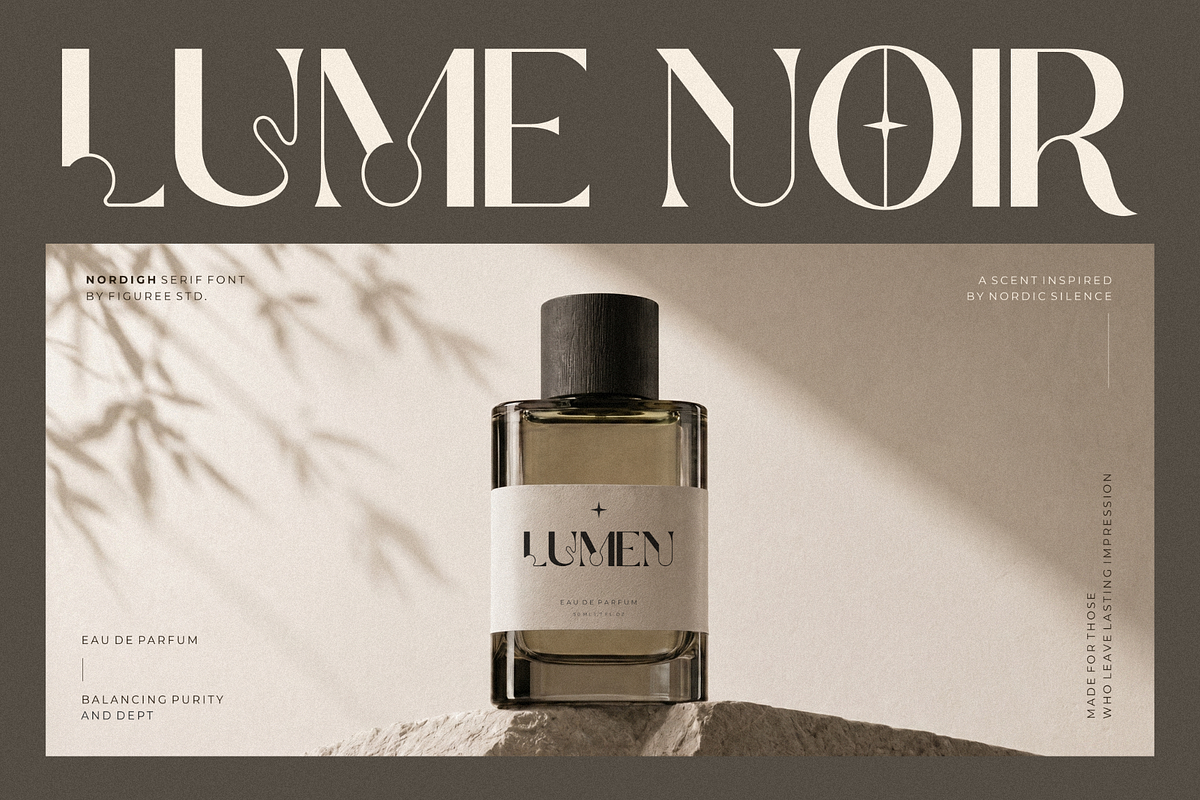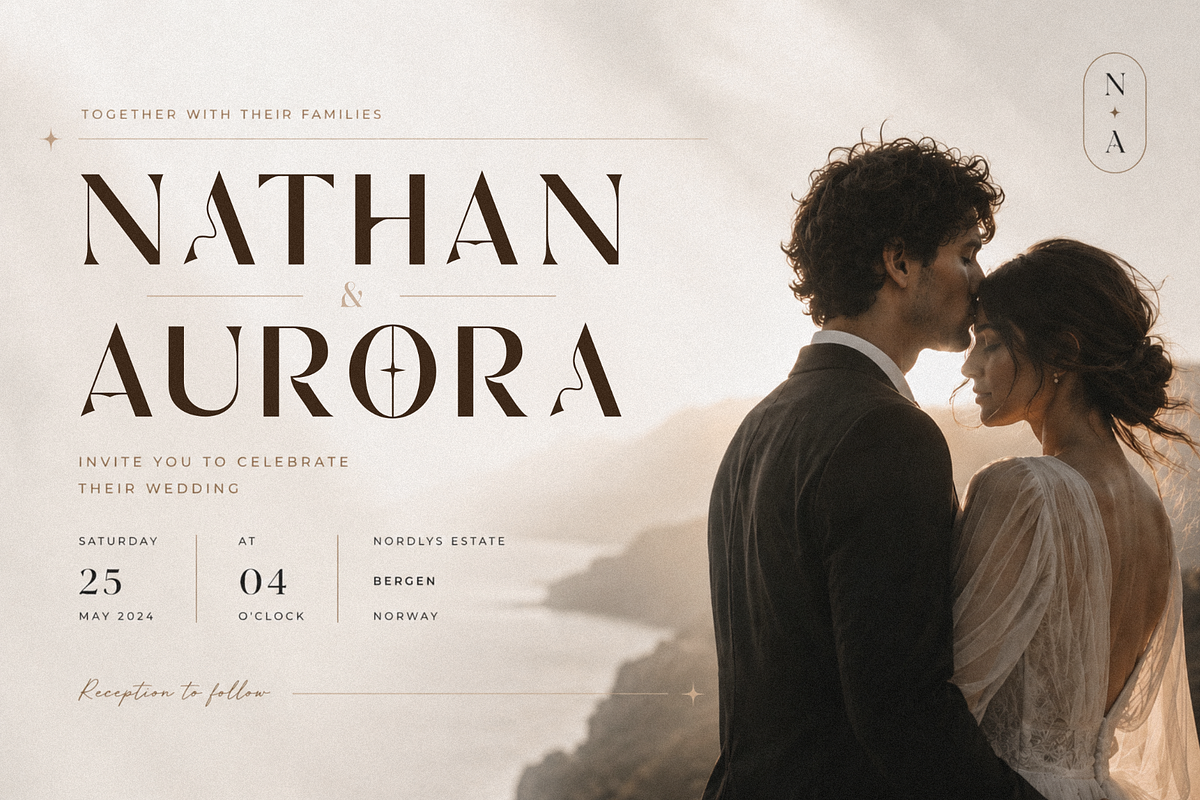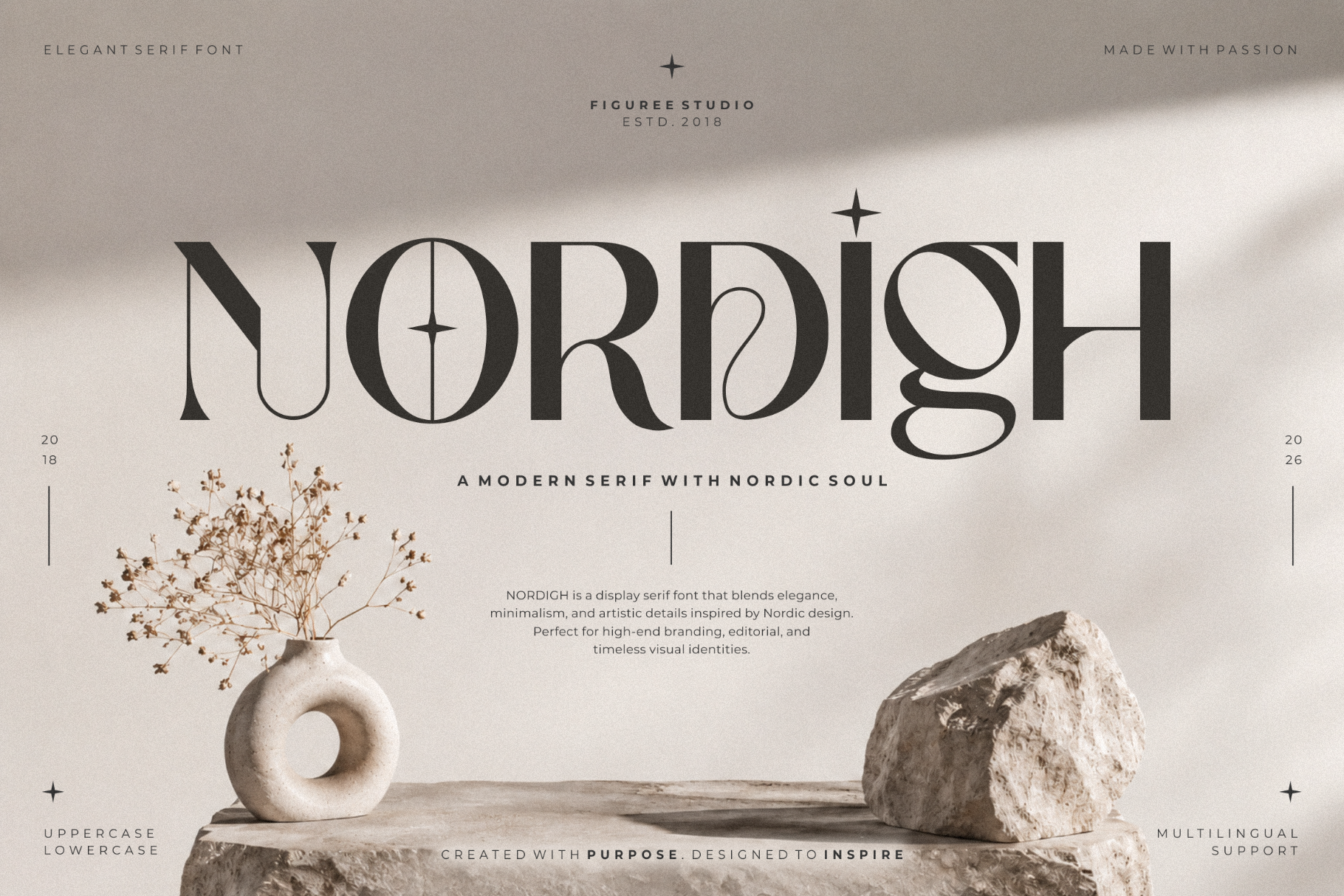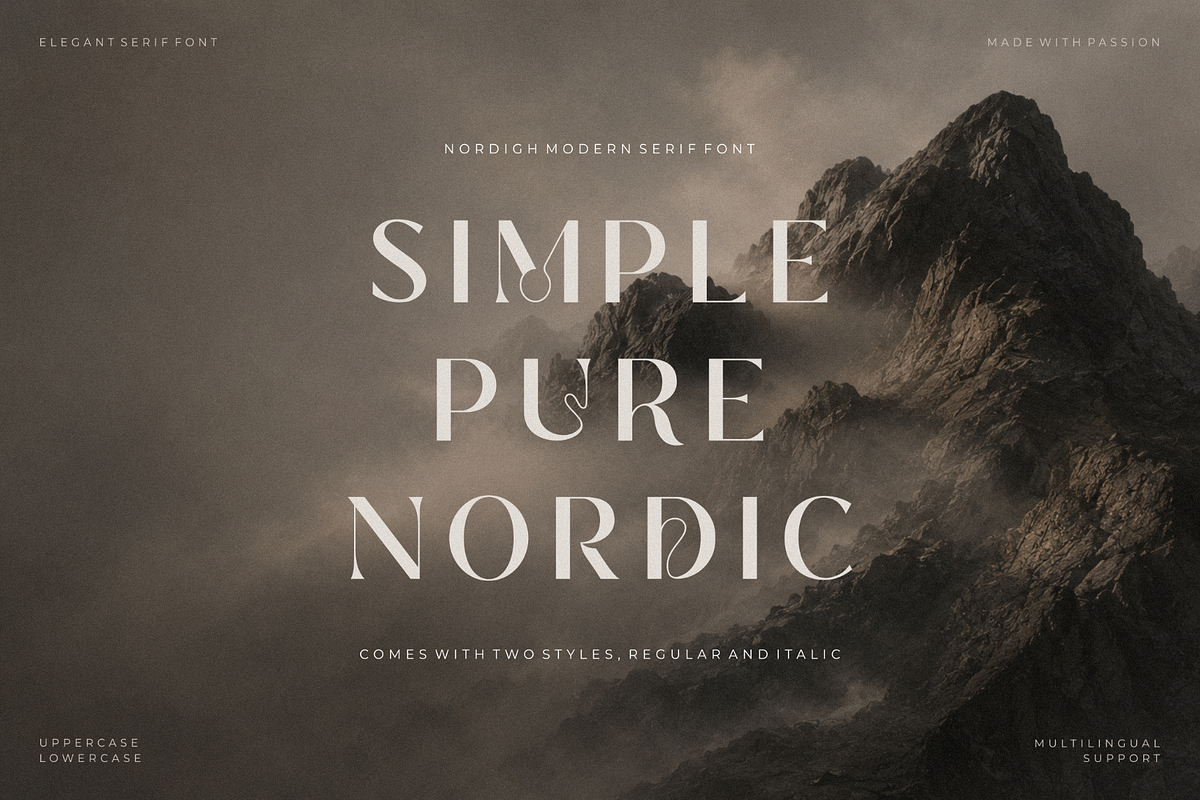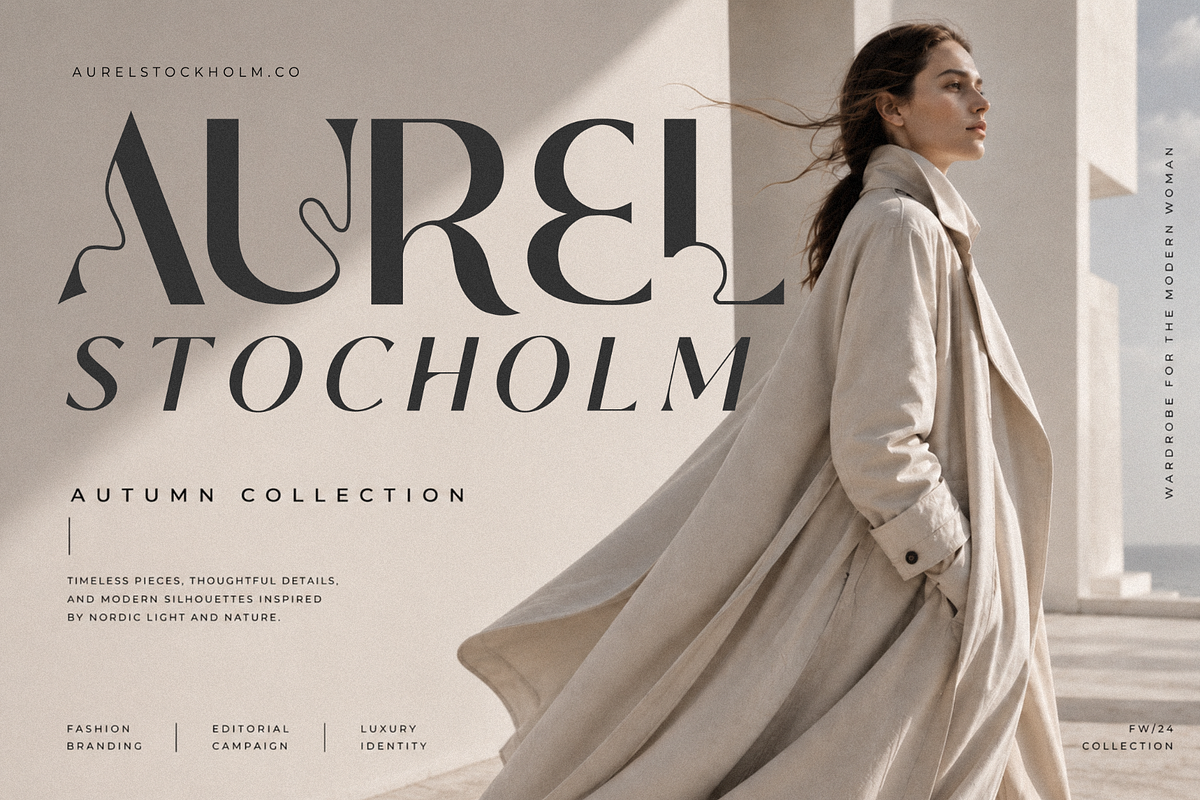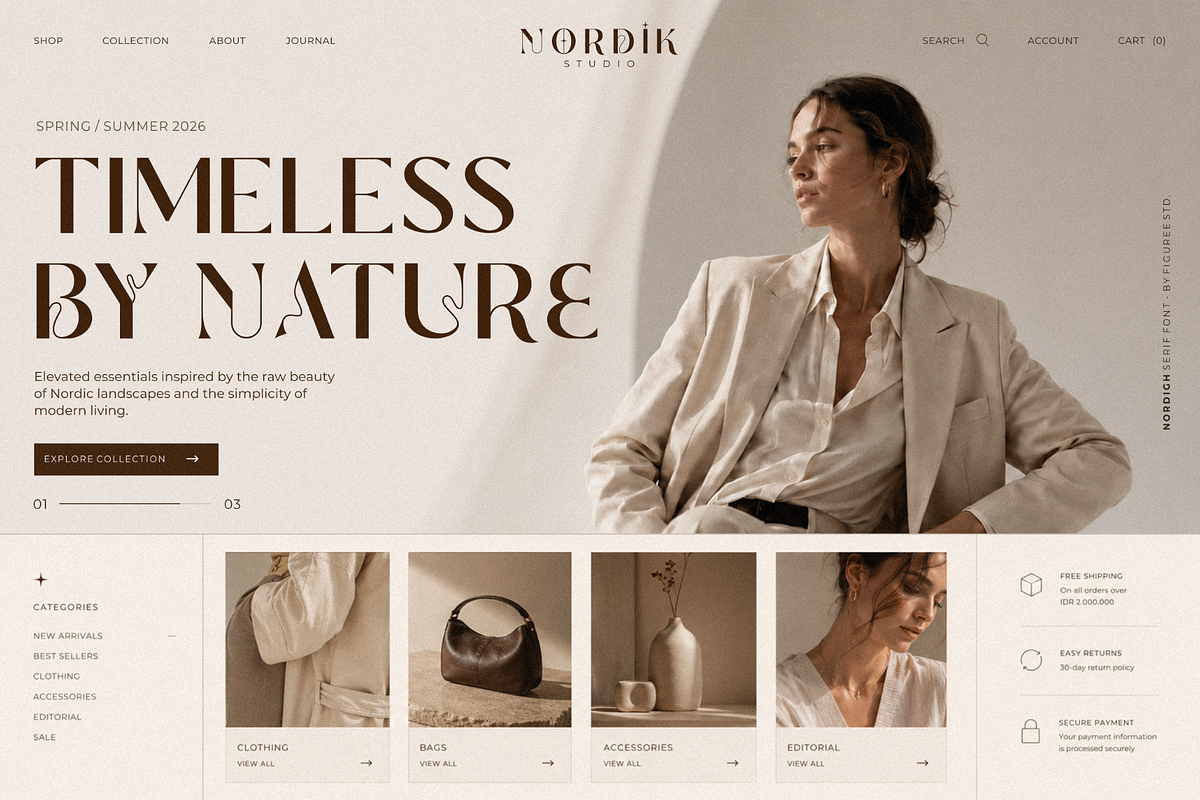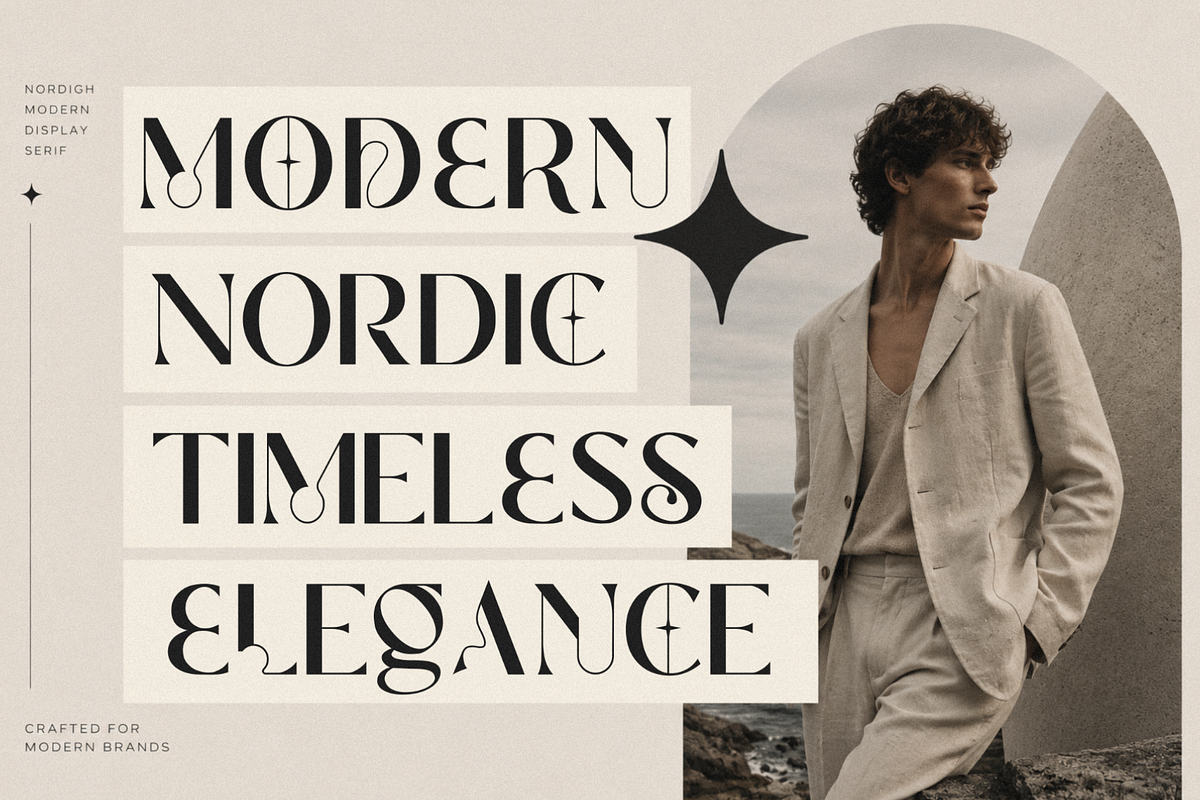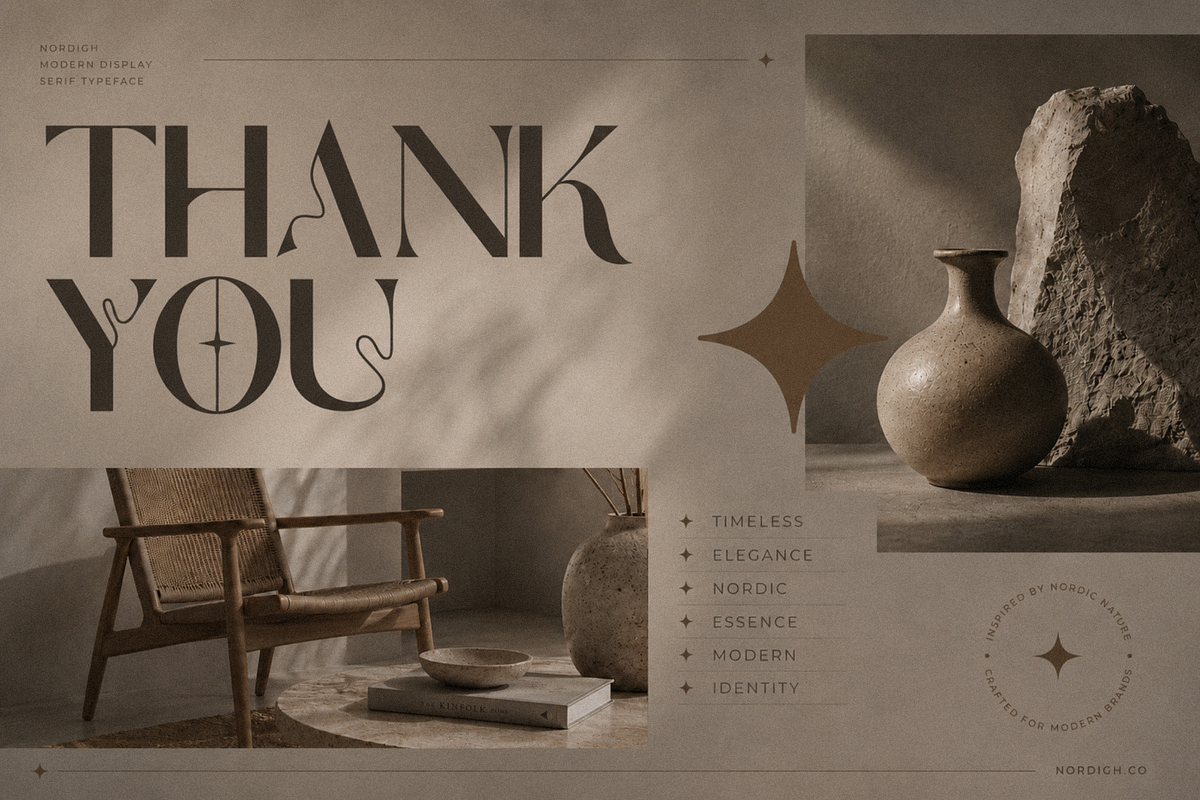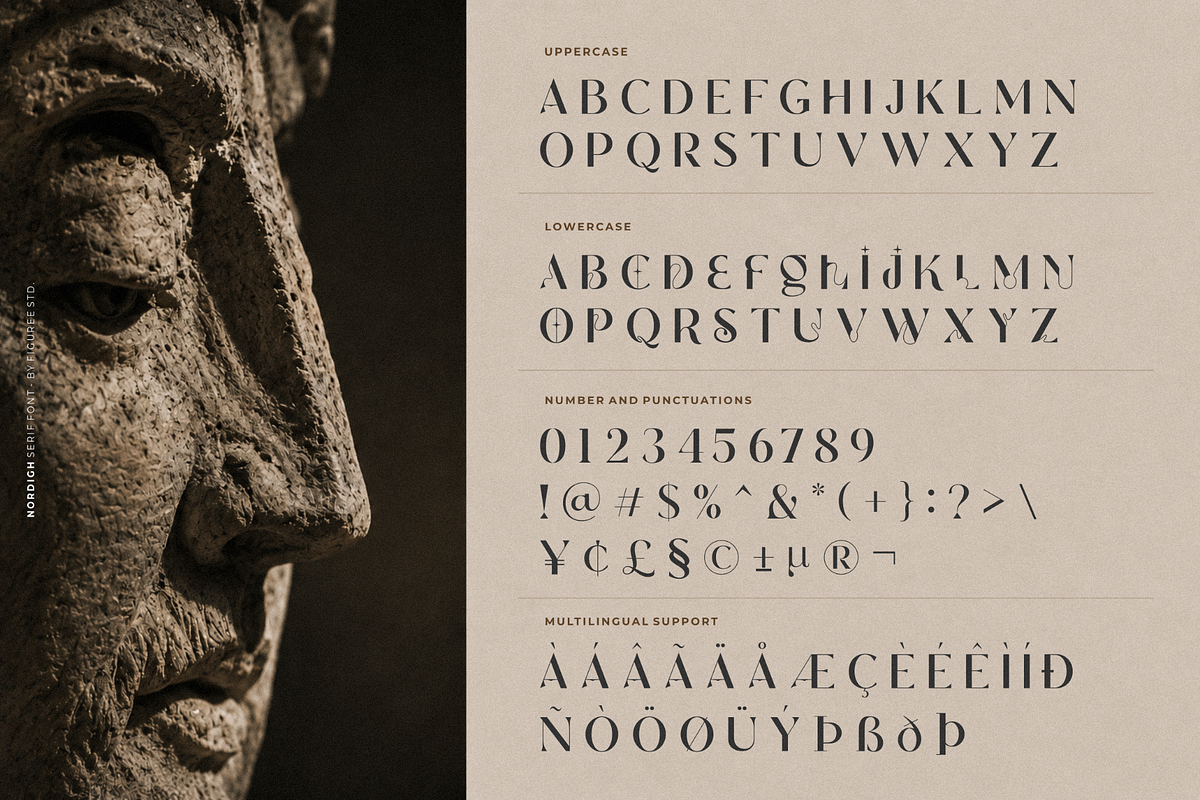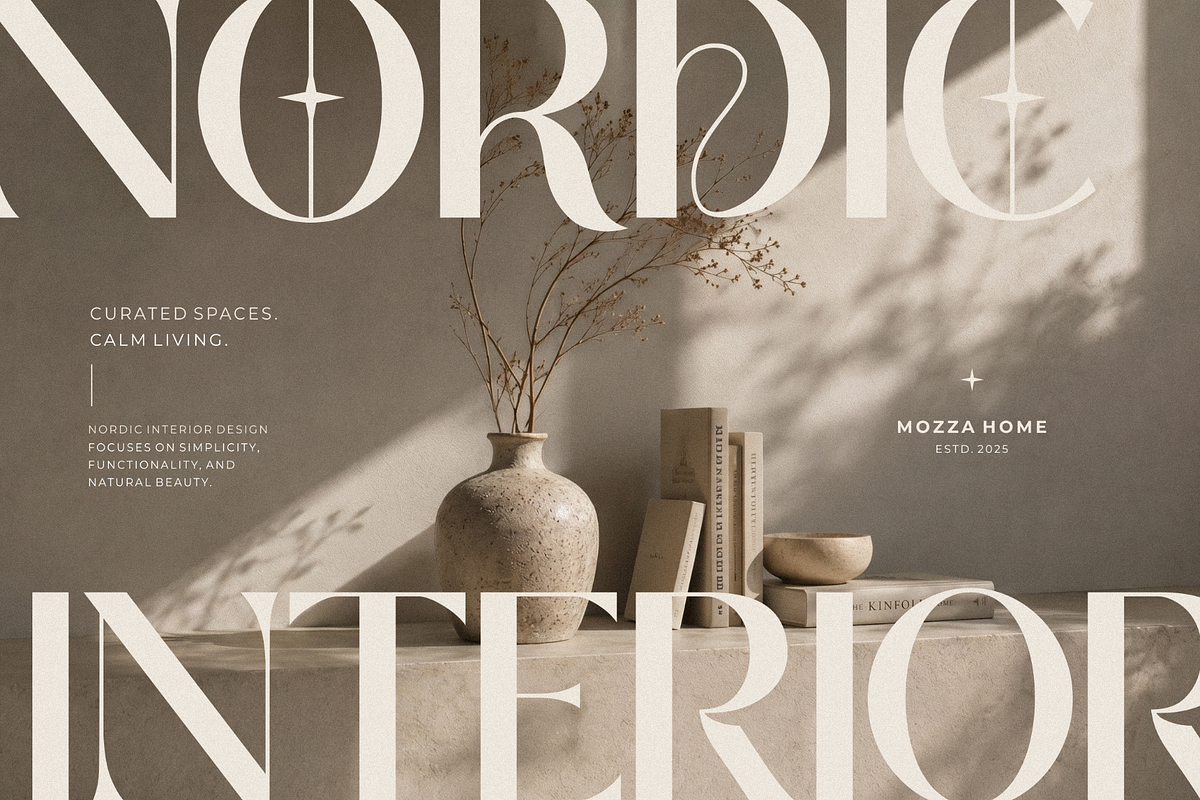
Nordigh - Serif Display Font
Bring character and atmosphere into your typography projects with Nordigh – Serif Display Font (With Nordic Soul). Designed with expressive serif details and a strong display presence, Nordigh delivers a distinctive look for titles, creative layouts, printed materials, and visual storytelling projects.
Inspired by Nordic mood and timeless forms, this typeface balances structure and personality while remaining versatile across different design directions. The font includes both Regular and Italic styles, giving designers more flexibility when creating contrast, emphasis, and layered typography compositions.
Nordigh works especially well for editorial spreads, posters, book covers, invitations, presentation titles, packaging layouts, social content, website headers, and creative publishing projects. Its display style allows text to become a visual element while maintaining readability.
The combination of uppercase, lowercase, symbols, and multilingual support makes it suitable for a wide range of languages and applications. Whether used for a dramatic headline or a refined subtitle, Nordigh helps create typography with presence and mood.
Uppercase & Lowercase Characters
Numbers, Punctuation & Symbols Included
Regular and Italic Styles
Display Serif Construction
Suitable for Print and Digital Projects
Strong Headline Presence
Works for Large Typography Layouts
Designed for Editorial and Creative Applications
Designers choose Nordigh because it creates visual impact without relying on excessive decoration. The serif structure gives projects a sense of atmosphere, while the Nordic-inspired character adds identity to titles and compositions.
The included italic version helps create rhythm and hierarchy inside layouts. Designers can combine Regular and Italic styles for quote sections, highlighted words, subtitles, or layered text treatments.
Its versatility also makes it practical across many creative uses. Nordigh can move from editorial pages to invitation designs, from poster headlines to digital banners, while maintaining a consistent personality.
Multilingual support expands its usability for international projects, and the complete character set gives flexibility for detailed typography work. Numbers, punctuation, and symbols are ready to support professional layouts without additional assets.
Instead of being limited to one visual direction, Nordigh adapts easily to minimalist compositions, atmospheric concepts, vintage-inspired layouts, and modern display arrangements.
Suggested Uses
Editorial headlines
Posters
Invitations
Book covers
Presentation titles
Website headers
Publishing layouts
Quotes and pull sections
Creative presentations
Packaging projects
Display typography compositions